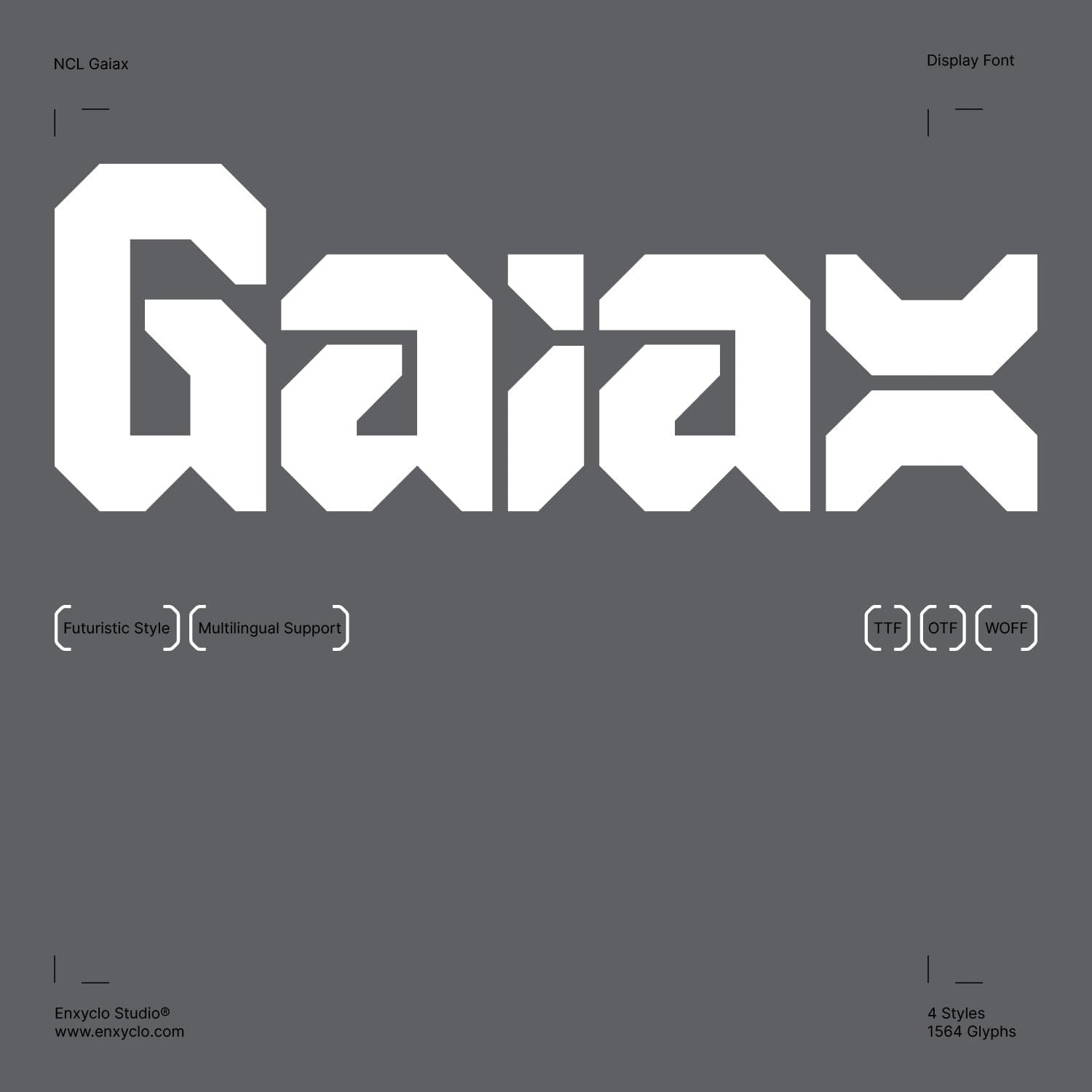
<p><strong>Gaiax Font Family</strong><em> </em>is a cutting-edge fusion of Y2K aesthetics, cyberpunk energy, and mecha-industrial precision. Inspired by futuristic robotics and high-tech machinery, this font slices through the noise with its bold, sharp, and dynamic letterforms. Whether you’re crafting a tech brand identity, esports logo, sci-fi movie title, or streetwear design, this font delivers an electrifying edge that commands attention.</p><ul><li><p>Gaiax Font Family:</p><ul><li><p>Gaiax Regular</p></li><li><p>Gaiax Outline</p></li><li><p>Gaiax Oblique Outline</p></li></ul></li><li><p>Contains 392 Glyphs for Each Style</p></li><li><p>Uppercase & Lowercase</p></li><li><p>Numeral, Punctuation & Symbols</p></li><li><p>Multilingual Support</p></li></ul><p></p>